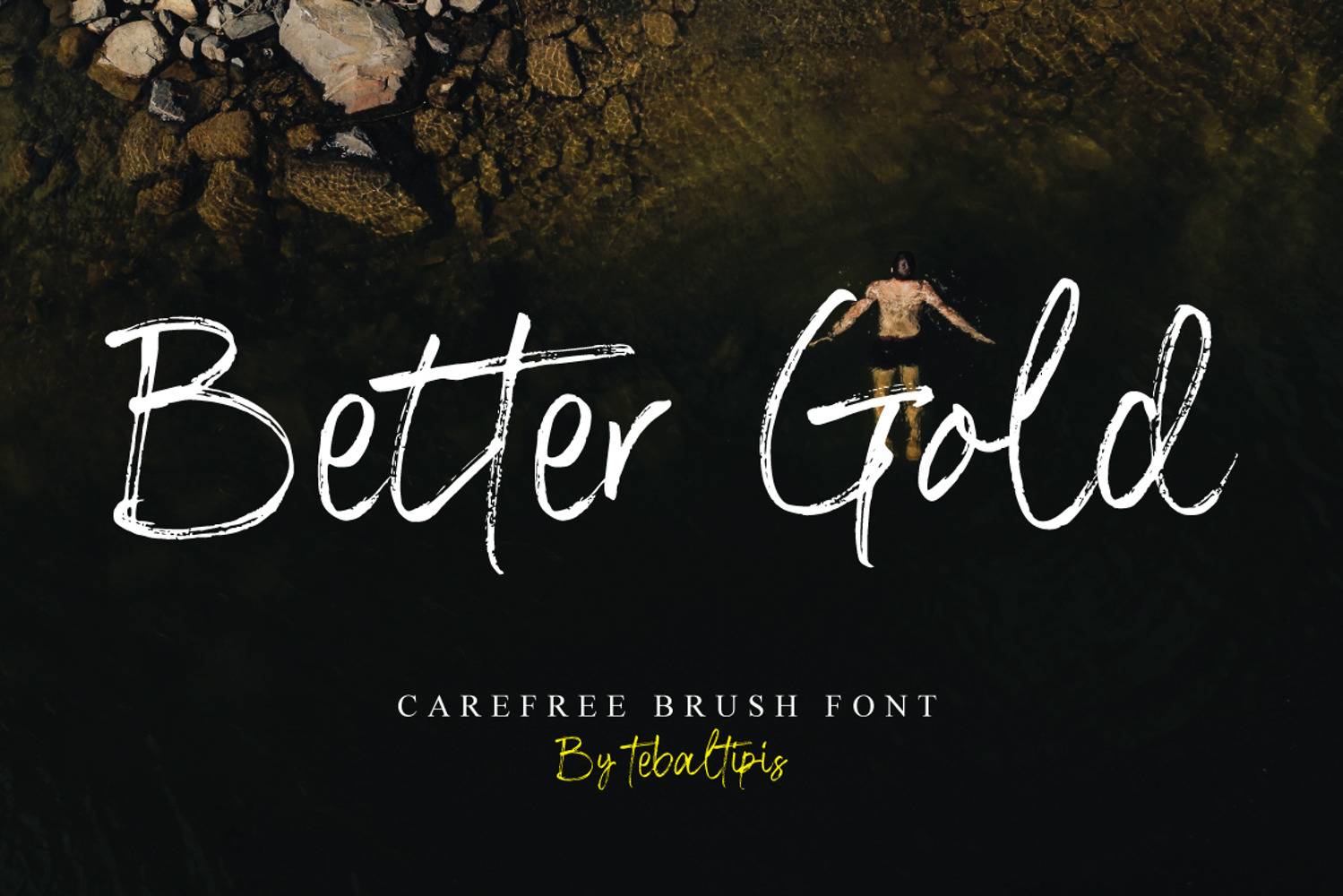
Better Gold Brush
Rough/Brushed Texture: A “dirty” and textural effect, as if ink or paint has blended into the surface, enhancing the organic and warm feel.